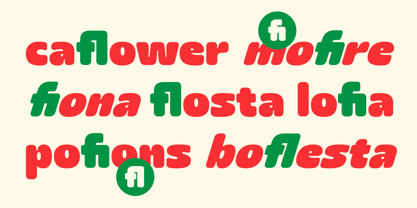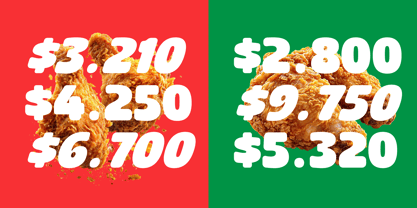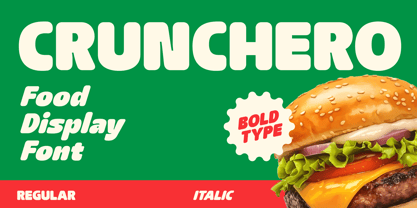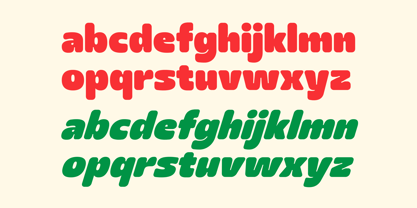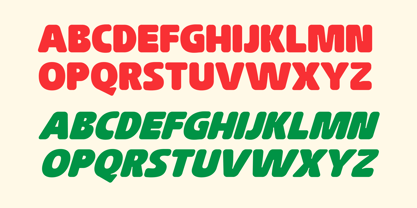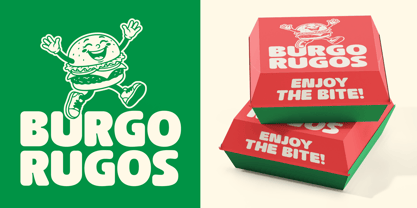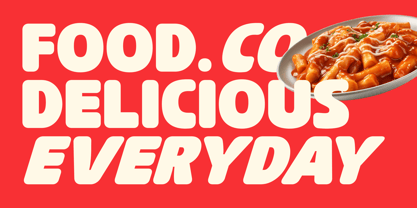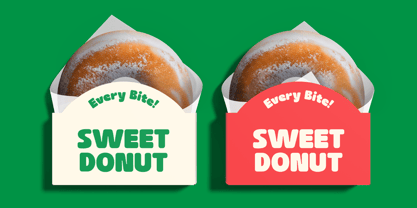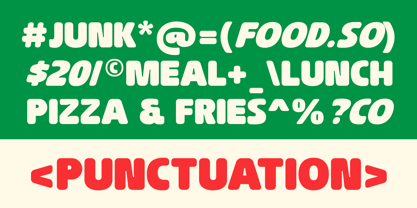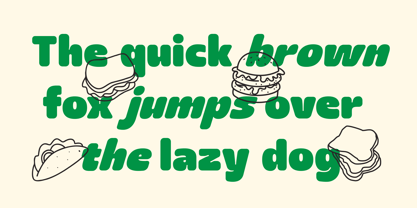
Crunchero
by Steptype
The Crunchero Font Family was designed by Mhd Husaini and published by Steptype. Crunchero contains 2 styles and family package options. More about this family
Crunchero is a bold display font designed with a playful and energetic personality. Featuring chunky letterforms, rounded shapes, and a strong visual impact, this food-inspired typeface is perfect for creating eye-catching designs in the restaurant, cafe, bakery, and food branding industries. Its friendly and delicious appearance makes it ideal for menu designs, food packaging, logo designs, promotional posters, social media content, and culinary advertisements.
With a modern yet fun style, Crunchero brings a cheerful and inviting feeling to every project. This creative display font works well for brands that want to express freshness, taste, excitement, and a memorable identity. Perfect for burger shops, snack brands, bakeries, dessert businesses, and casual dining concepts looking for a unique and playful typography style.